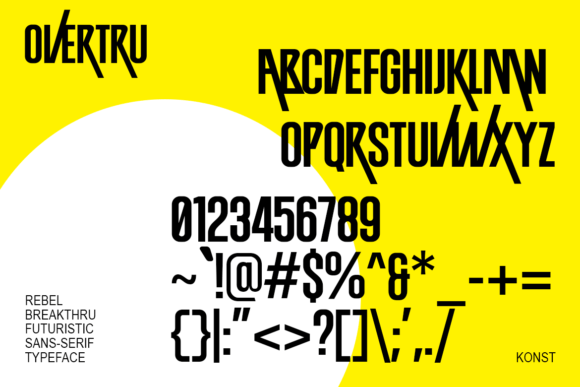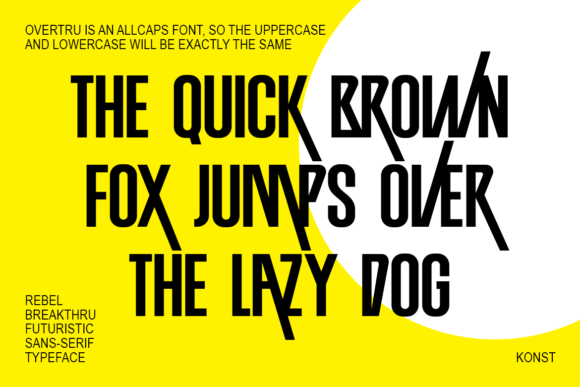
Introduction to Overtru Font
Have you ever stared at a blank canvas, feeling the urge to scream out your creativity, only to be held back by the constraints of conventional typography? If so, you’re not alone. As a designer, I’m sure you’ve faced this dilemma at some point, longing for a font that truly embodies the essence of rebellion and self-expression.
That’s where the Overtru Font comes in – a game-changing, high-quality design resource that’s about to revolutionize the way you approach your creative projects. With its bold, futuristic aesthetic and transparent background, this font is the perfect tool for making a statement in your designs, from posters and brand campaigns to futuristic theme designs and logo creations.
Key Features of Overtru Font
- Transparent background, allowing for effortless layering and customization in your design projects.
- Unique characteristics include bold, modern, and elegant font styles, perfect for adding a touch of sophistication to your designs.
- Overtru Font is a high-resolution font, ideal for large-scale designs, signage, and billboards, where clarity and readability are crucial.
- Perfect for designers, artists, and creatives working on various projects, from branding and advertising to digital art and graphic design.
Honest Review: Overtru Font
As a designer, I’m always on the lookout for high-quality design resources to elevate my creative projects. Recently, I stumbled upon the Overtru Font, and I’m excited to share my thoughts with you.
Here are some things that work well with the Overtru Font ✨:
- Transparent background, making it easy to work with images and graphics.
- Wide range of font styles, ensuring versatility in various design contexts.
However, I did encounter a few limitations with the Overtru Font ⚠️:
- Limited support for certain font sizes and styles.
Overall, I’d give the Overtru Font a solid 4 out of 5 stars. While it excels in many areas, the limitations hold it back from being a top-tier design resource. Nonetheless, it’s still a valuable addition to any designer’s toolkit, especially for personal or small-scale projects.
Tips for Getting the Most Out of Overtru Font
Use the Overtru Font in a creative project to add a unique touch. Experiment with different font sizes, colors, and styles to find the perfect combination for your design. You can also use the font with a transparent background to create a design that stands out.
The Overtru Font is perfect for use in a variety of design projects, including logos, business cards, and social media graphics. It’s also a great choice for designers who want to create a high-quality, professional-looking design with a unique touch.
Alternatives to Overtru Font
Montserrat Font is a high-quality, modern sans-serif font that’s perfect for creative projects requiring a sleek and sophisticated look. It’s available for free download and comes with a transparent background, making it ideal for designing logos, branding, and web graphics. Montserrat Font is a great alternative to Overtru Font for designers who want a more minimalist and clean design.
When to use: Logos, branding, web graphics, and any project requiring a modern and minimalist look. How it compares to Overtru Font: Montserrat Font is more geometric and has a more modern feel compared to Overtru Font.